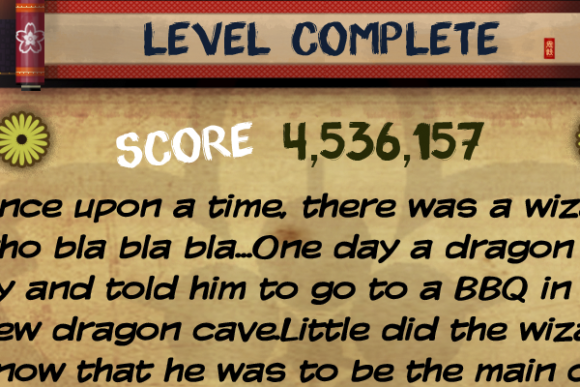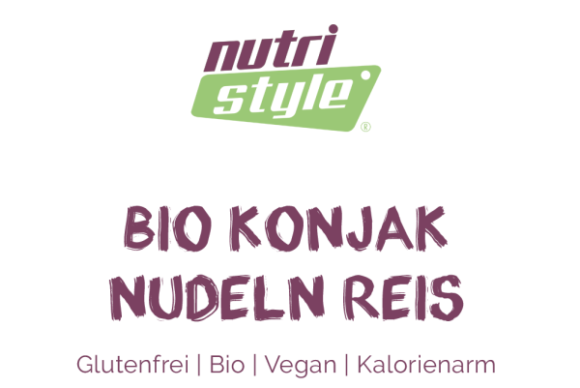
Appo Paint Font
db-ku.com - Script & Handwritten -- Appo paint was designed based on the events that occurred in 2006 in Oaxaca, when there were riots and street takeovers and protest graffiti flooded the city… one of those graffiti was the inspiration for this font…